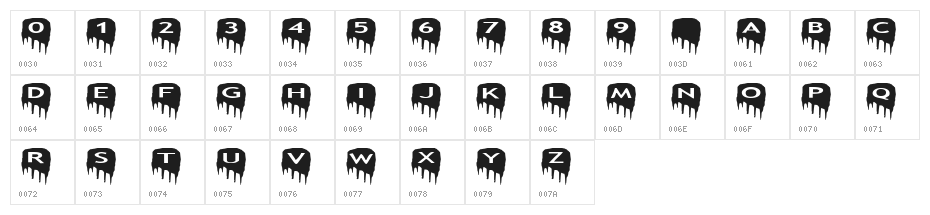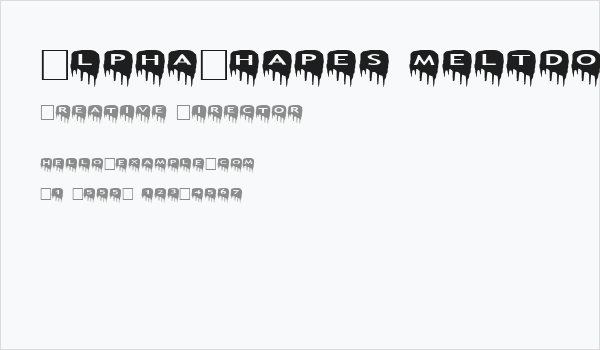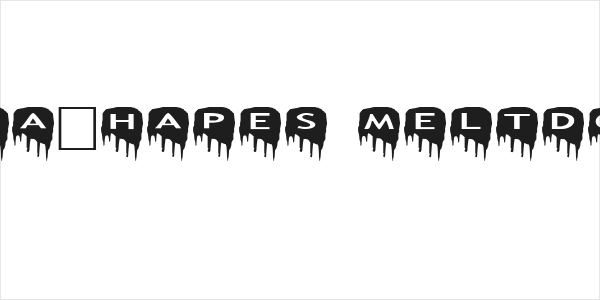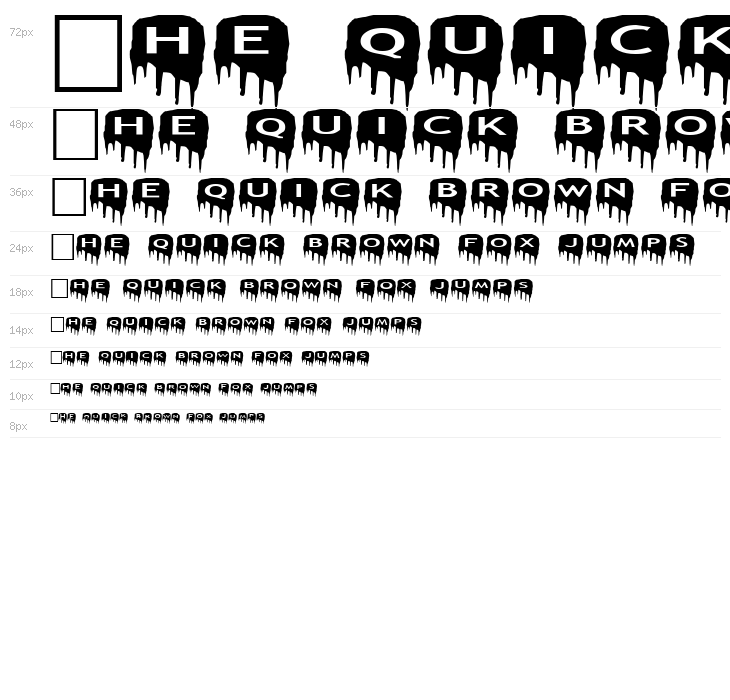
AlphaShapes meltdowns Font
AlphaShapes meltdowns Description
This font features a unique and dramatic design, where each character appears to be melting or dripping, creating a visually striking effect. The uppercase letters and numbers are bold and heavily stylized, with a thick, black outline that enhances the melting appearance. The characters are enclosed in a rectangular shape, adding to the overall boldness and impact. This font is ideal for projects that require a strong visual statement, such as horror-themed designs, Halloween promotions, or any creative work that seeks to evoke a sense of decay or transformation. The dripping effect is consistent across all characters, providing a cohesive and thematic look.
Proposed ProjectsPerfect for Halloween posters, horror movie titles, themed event invitations, and edgy graphic designs.